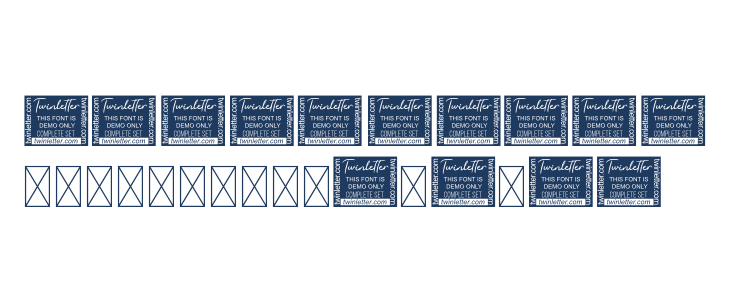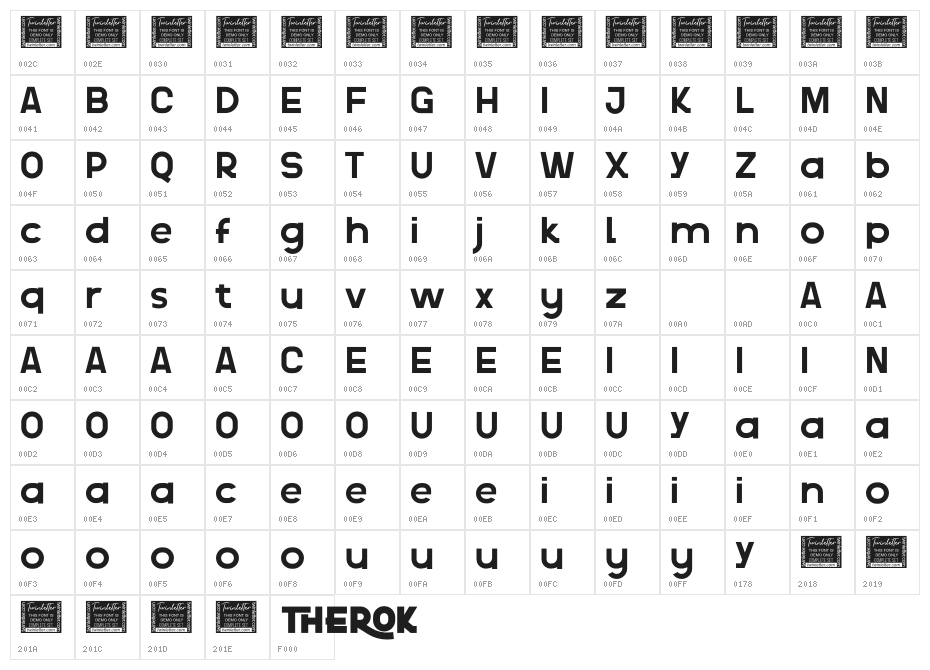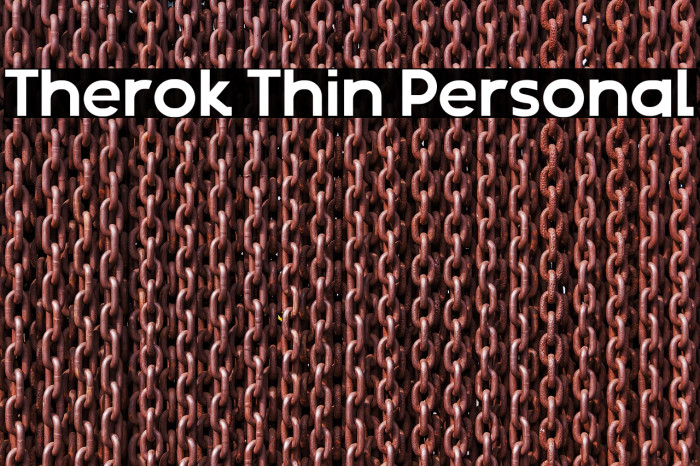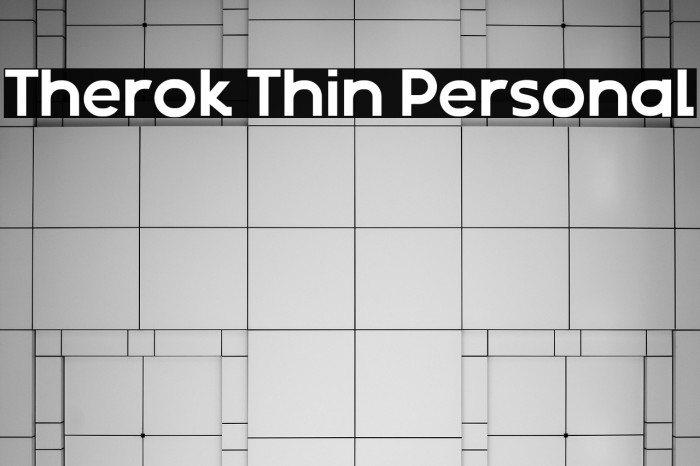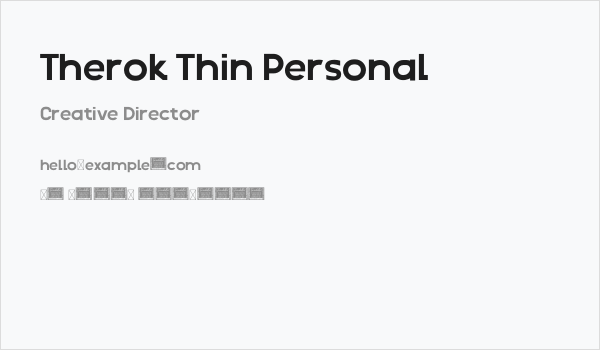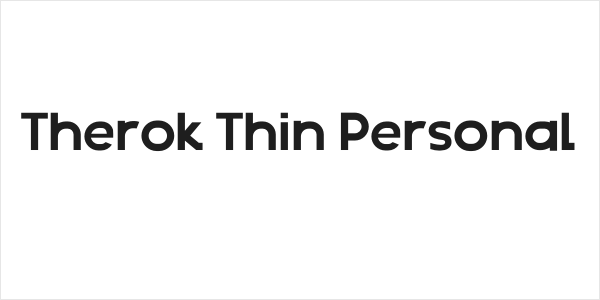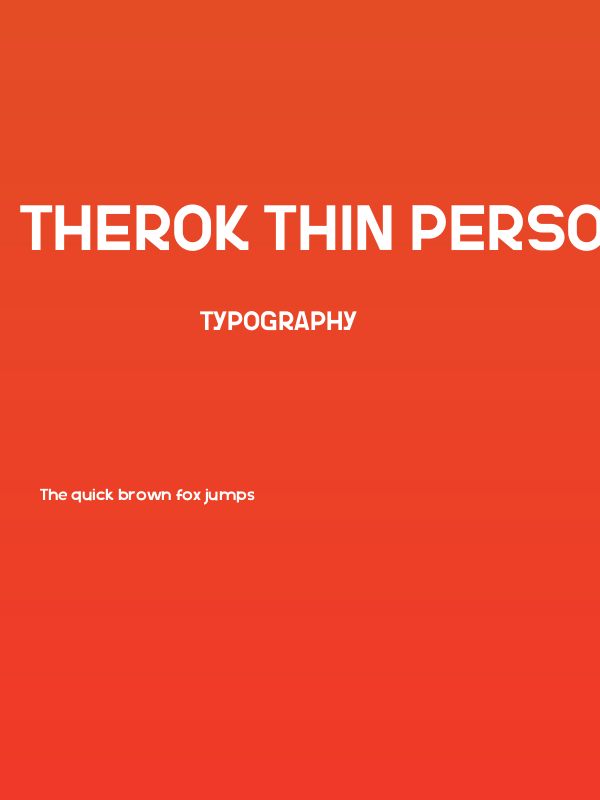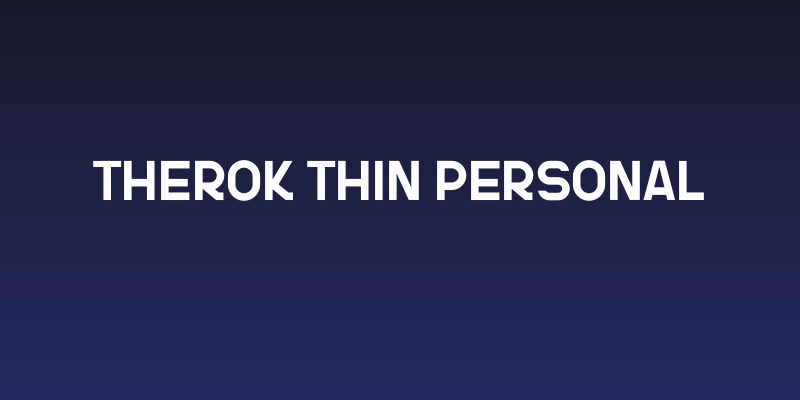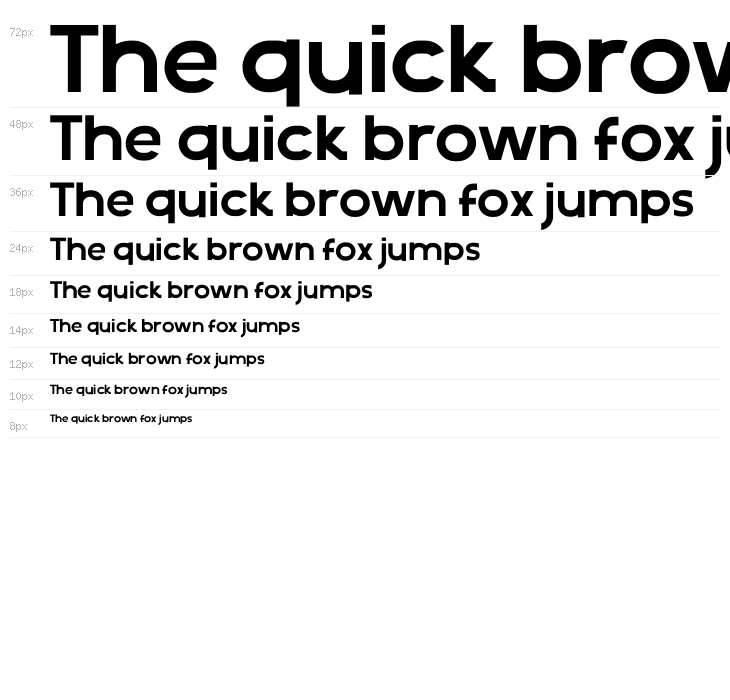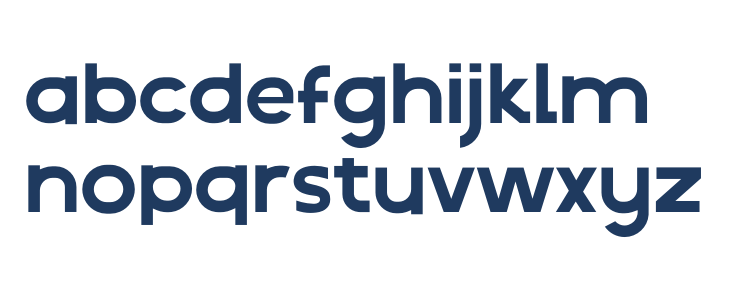
Therok Thin Personal Font
Therok Thin Personal Description
This font showcases a clean and modern sans-serif style with a geometric structure. The uppercase and lowercase letters are well-balanced, featuring consistent stroke widths that contribute to a harmonious appearance. The characters are slightly condensed, providing a compact yet readable look. The design is minimalistic, with smooth curves and straight lines that enhance its contemporary feel. This font is versatile, making it suitable for various design applications where clarity and simplicity are desired.